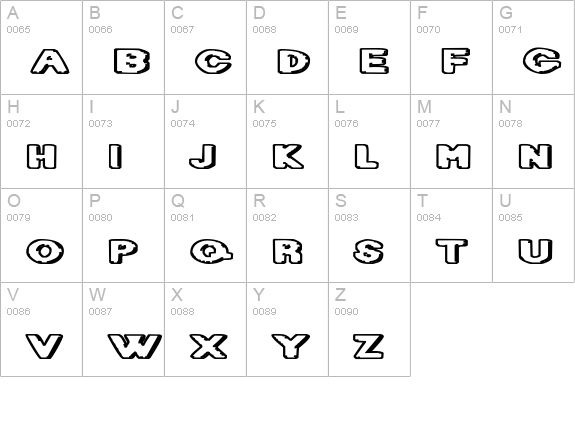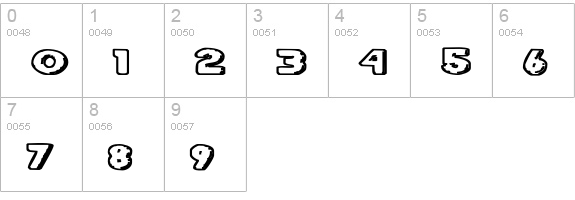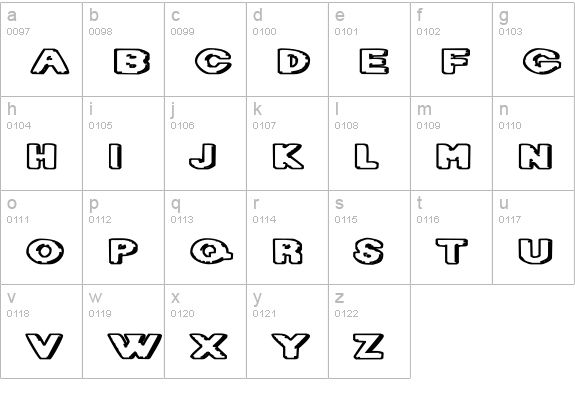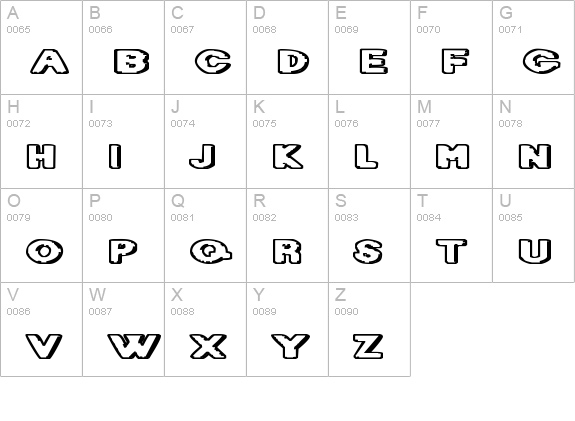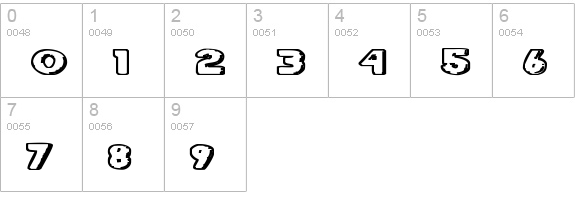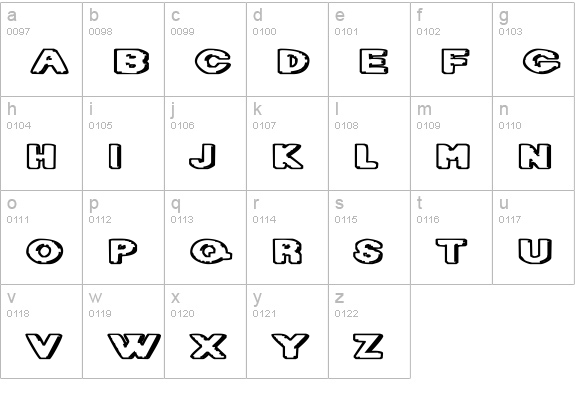
DietDrCreep Font Details
DietDrCreep font is a quirky and whimsical typeface that will add a touch of playfulness to any design project. Its uneven lines and unique character shapes give it a fun and offbeat feel, perfect for adding a bit of personality to your creations. Whether you're designing a poster, logo, or website, DietDrCreep font will surely make your text stand out. The best part? DietDrCreep font is completely free to download at FontsMarket.com, making it accessible to all designers looking to spice up their projects without breaking the bank. Don't miss out on this one-of-a-kind font that will surely bring a touch of creepiness and charm to your designs. Download it now and let your creativity run wild with DietDrCreep font!